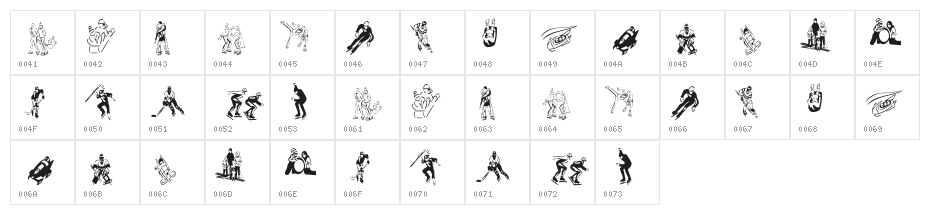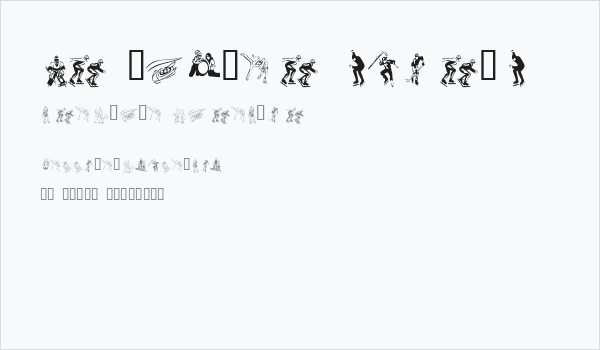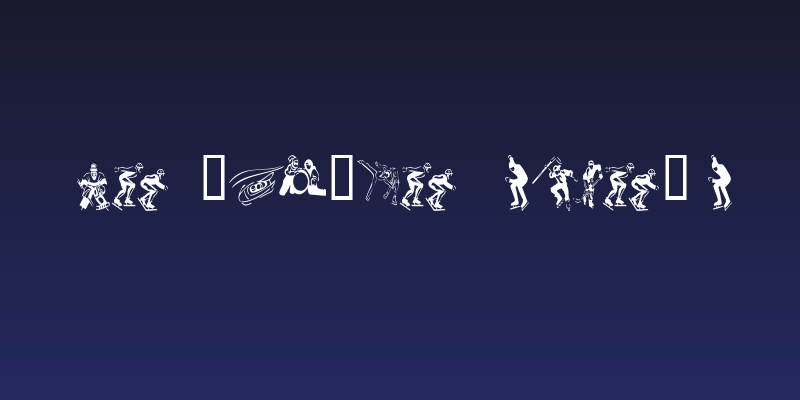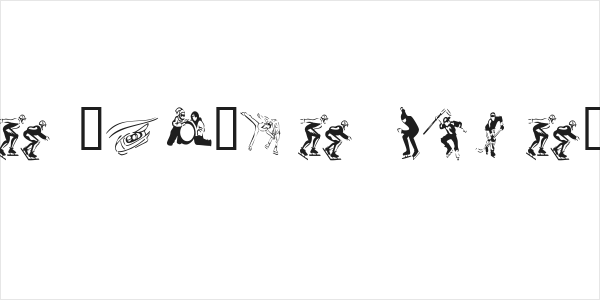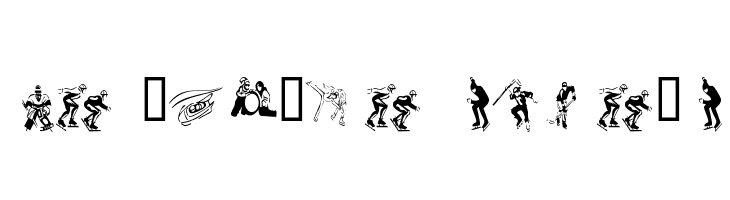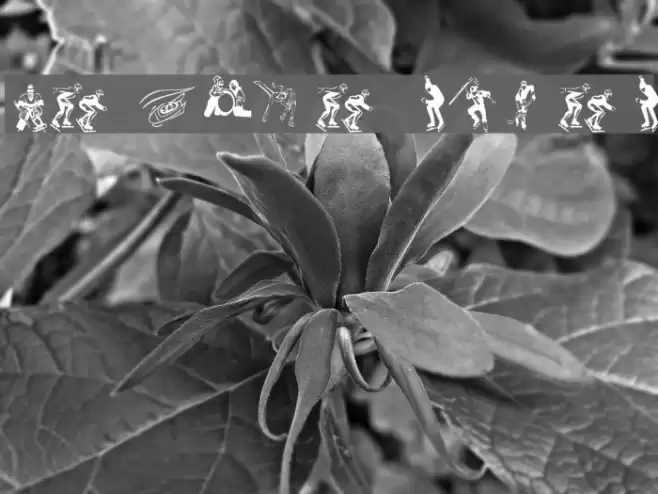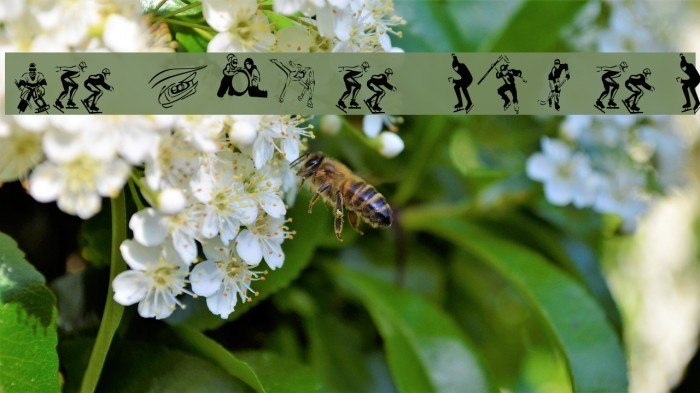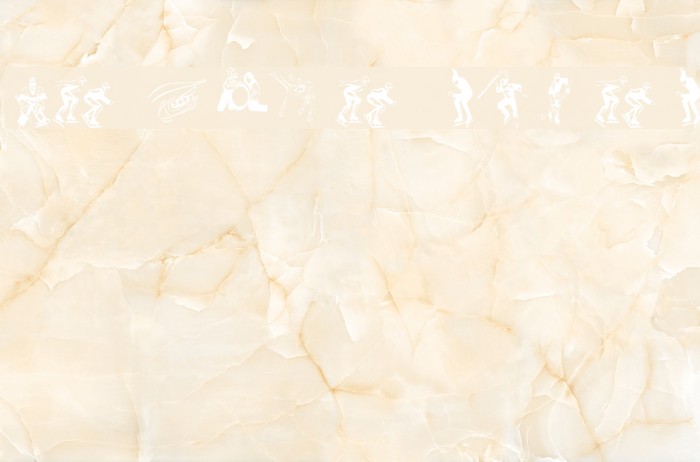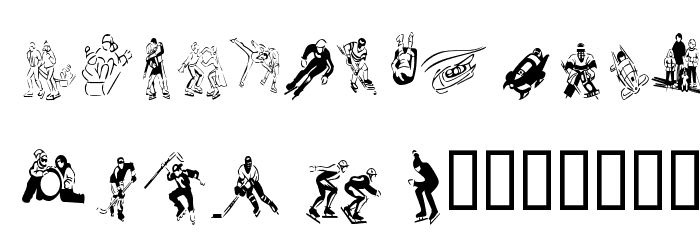
KR Winter Sports Font
KR Winter Sports Description
This font is a decorative collection featuring winter sports-themed illustrations. Each character is represented by a unique graphic depicting various winter sports activities, such as skiing, ice skating, and hockey. The designs are detailed and dynamic, capturing the essence of movement and excitement associated with winter sports. The characters are more illustrative than textual, making them ideal for creative and thematic projects. The font does not follow traditional typographic conventions, focusing instead on visual storytelling through its sports imagery.
| Use Case | Logos, Posters, Themed Invitations |
| Proposed Projects | Ideal for sports event posters, winter sports merchandise, themed invitations, and educational materials about winter sports. |